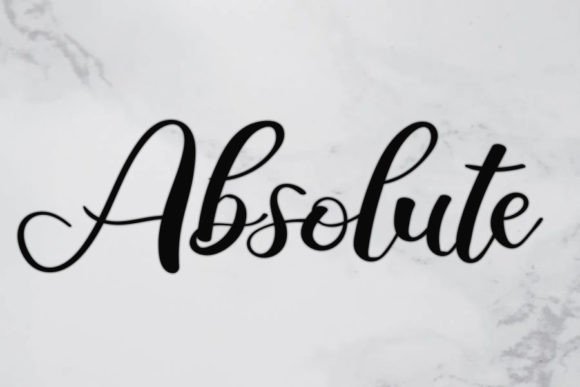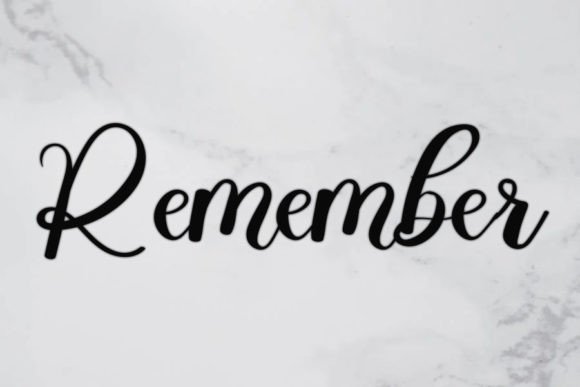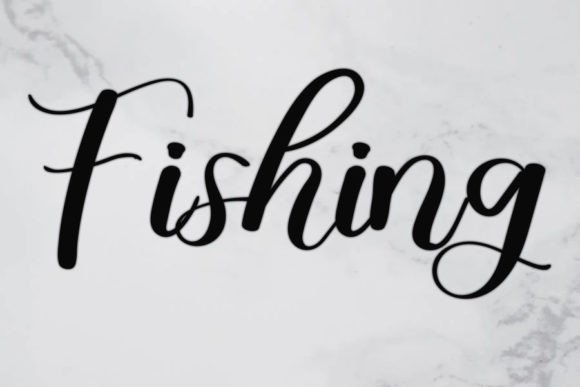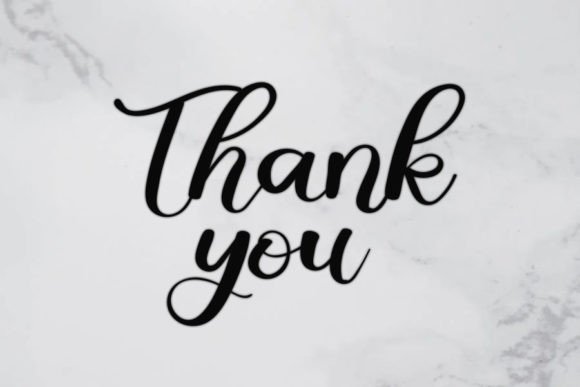
Bigger Font
About Bigger Font
A Charming and Elegant Handwritten Font
The Bigger Font is a charming and elegant handwritten typeface that adds a personal and sophisticated touch to any design. With its graceful strokes and beautiful curves, it’s perfect for a wide variety of creative projects. Whether you’re designing wedding invitations, thank you cards, logos, or business cards, the Bigger Font adds a distinct and timeless feel to your work, ensuring your designs stand out with class and style.
Perfect for Wedding Invitations and Special Occasions
If you’re working on wedding invitations or any other special event stationery, the Bigger Font is an excellent choice. Its elegant yet friendly handwritten design gives your invitations a personalized and unique touch, making them feel special and memorable. Whether it’s for a wedding, anniversary, birthday, or other important occasion, this font adds beauty and charm to your designs, ensuring they leave a lasting impression on your guests.
Ideal for Thank You Cards and Personalized Messages
The Bigger Font is perfect for creating thank you cards, greeting cards, and holiday messages. Whether you’re designing for Christmas, Valentine’s Day, or any other occasion, this font adds a heartfelt and elegant touch to your messages. Its flowing strokes ensure that your text looks both inviting and refined, making your cards feel extra special and personal.
Great for Logos and Branding
For logos and branding materials, the Bigger Font provides a stylish yet professional handwritten design. Whether you’re working on a company logo, brand name, or product packaging, this font offers a memorable, distinct identity that makes your branding stand out. Its perfect balance of charm and elegance ensures it works well for businesses looking to convey sophistication and approachability at the same time.
Versatile for Multiple Design Applications
The Bigger Font is highly versatile, making it ideal for a wide range of design applications. Whether you’re working on flyers, posters, website headers, social media graphics, or business cards, this font enhances your designs with a clean, elegant look. Its handwritten style brings a personal touch to both digital and print media, making it an excellent choice for personal and business projects alike.
Elegant, Timeless, and Legible
Despite its charming and elegant design, the Bigger Font remains legible and easy to read. Its smooth, flowing strokes ensure that your text remains clear, even when used for longer passages or smaller text sizes. Whether you’re creating headlines, captions, or body text, this font offers both beauty and readability, making it suitable for various design needs.
The Bigger Font is designed to be easy to use and works seamlessly across various design software. Whether you’re creating logos, invitations, greeting cards, or marketing materials, this font ensures your designs look polished and professional. Its flexibility allows it to work well for large text and small details, making it suitable for a wide range of design projects.
Add Charm and Elegance to Your Designs with Bigger Font
If you’re looking for a charming, elegant, and timeless handwritten font to elevate your designs, the Bigger Font is the perfect choice. Whether you’re designing wedding invitations, logos, thank you cards, or greeting cards, this font brings a personalized touch that adds sophistication and style to your work. Make your designs stand out with the Bigger Font and create spectacular, memorable projects that leave a lasting impression.